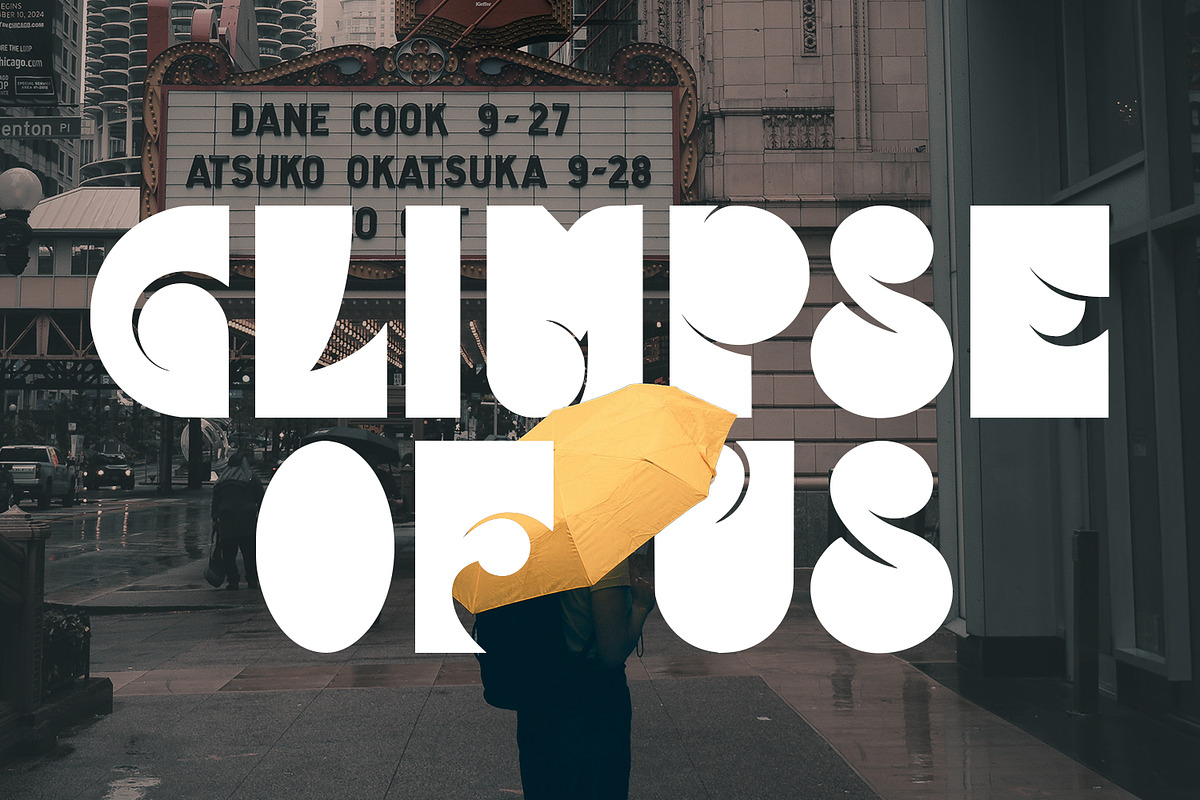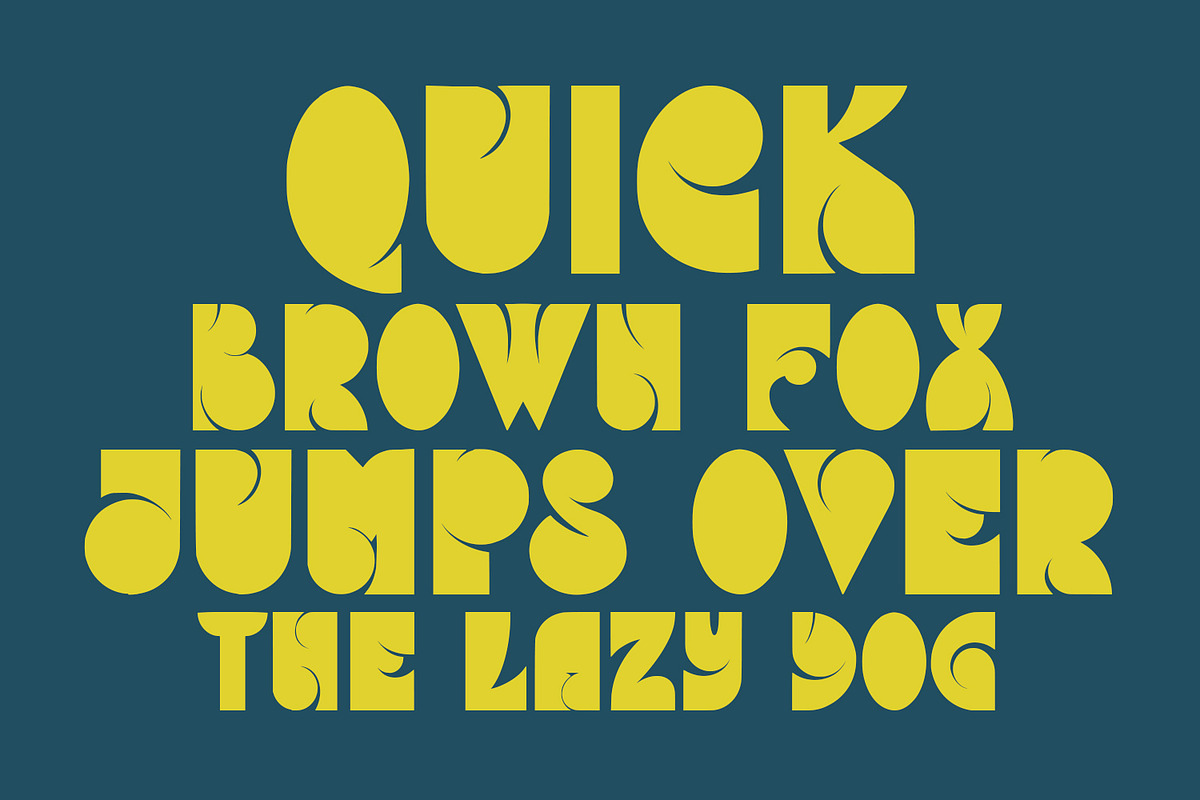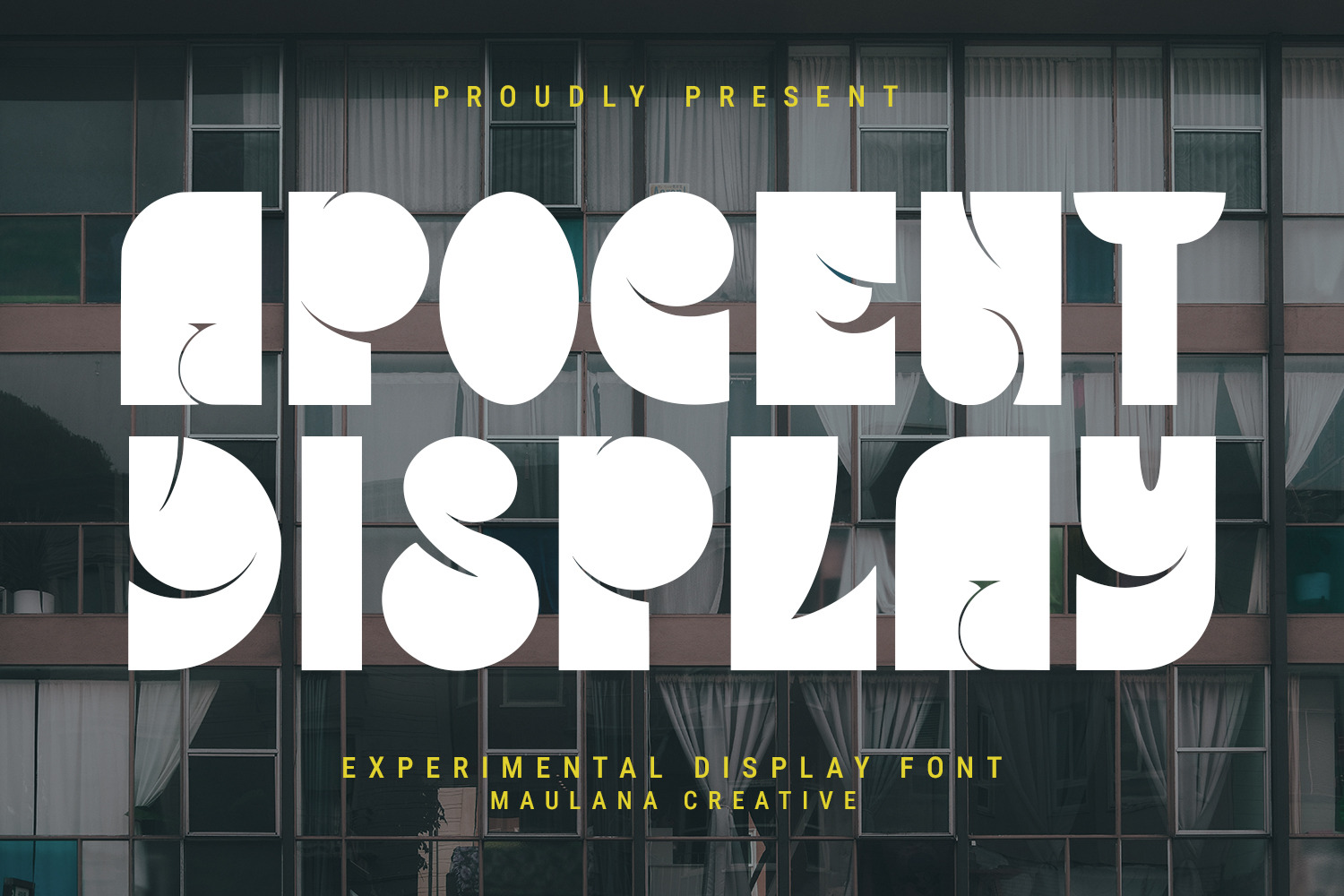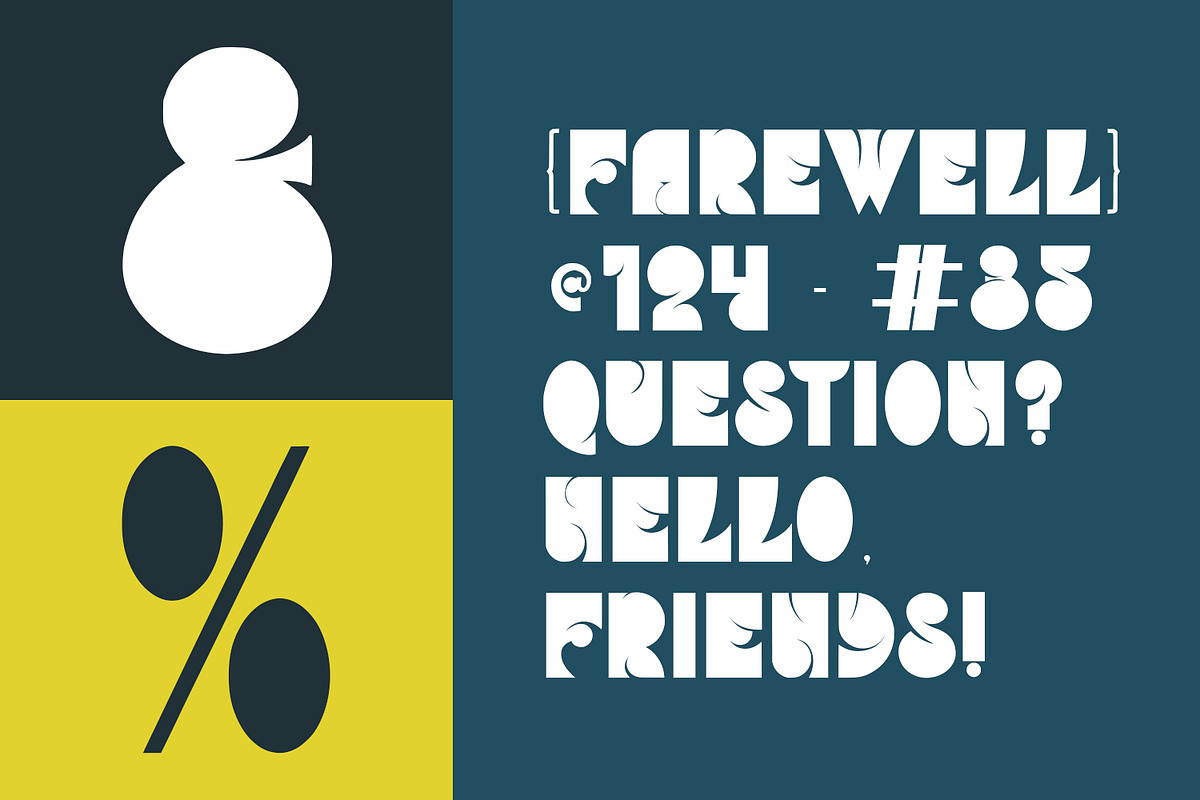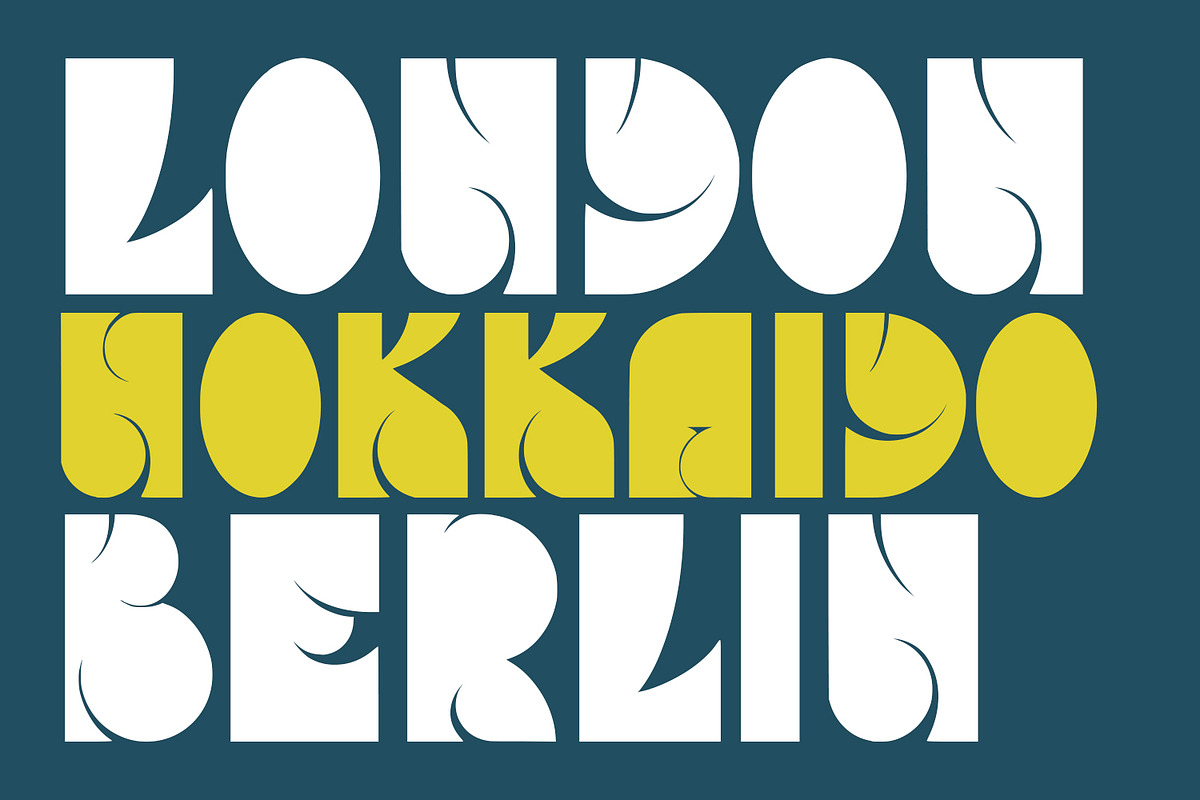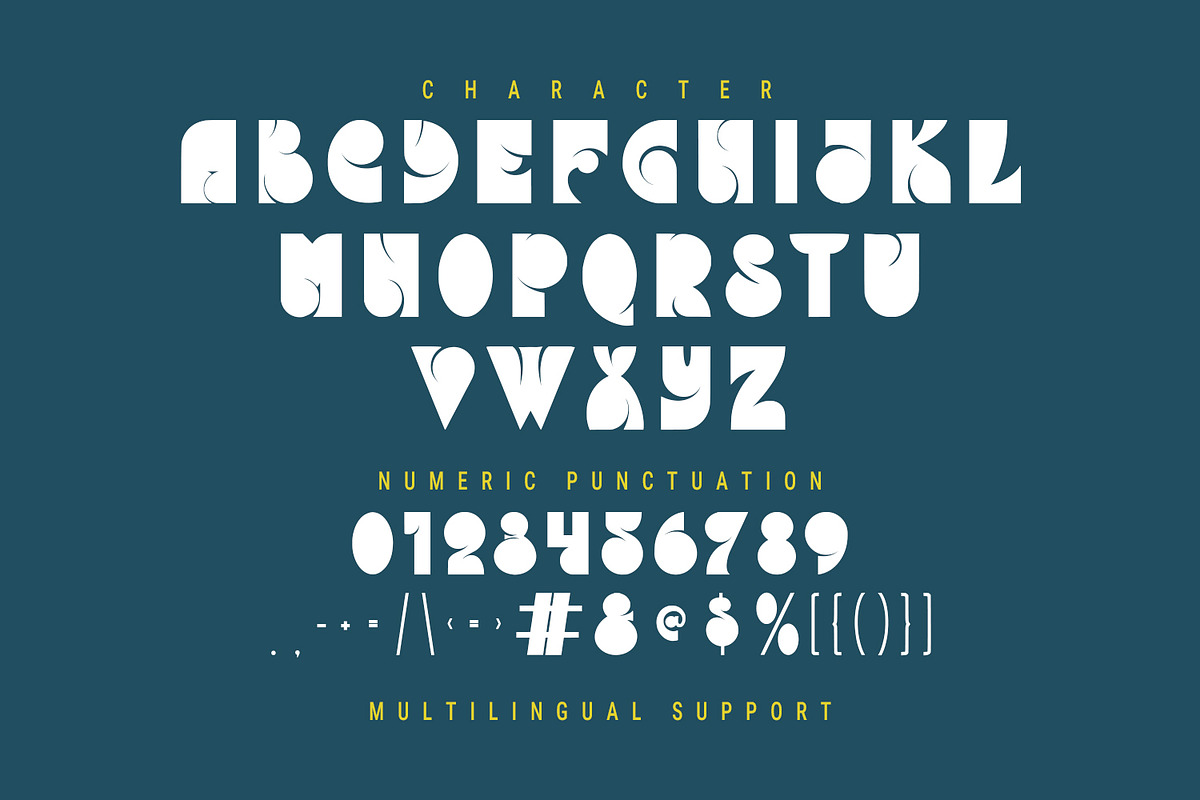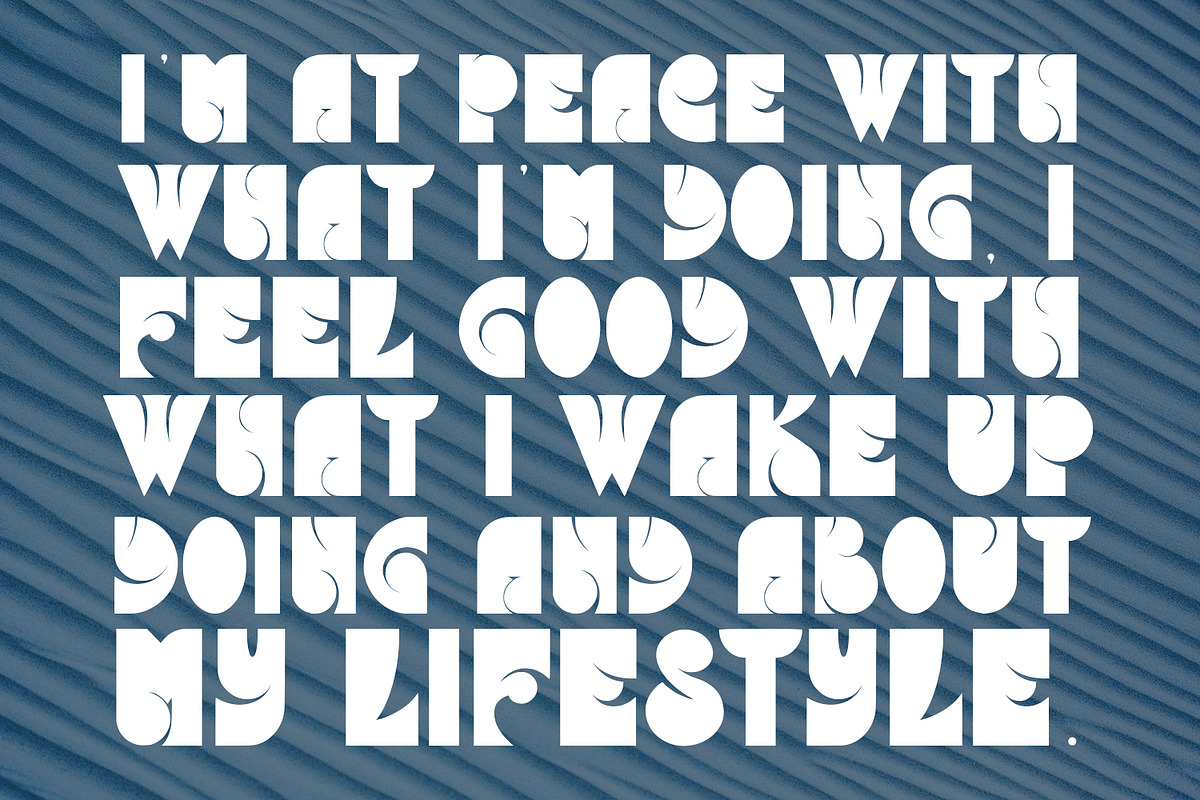
Apocent Experimental Display Font
Apocent is a experimental display font. With bold stroke, fun character to give you an extra creative work. Apocent font support multilingual more than 100+ language. This font is good for logo design, Social media, Movie Titles, Books Titles, a short text even a long text letter and good for your secondary text font with sans or serif. Make a stunning work with Apocent font.